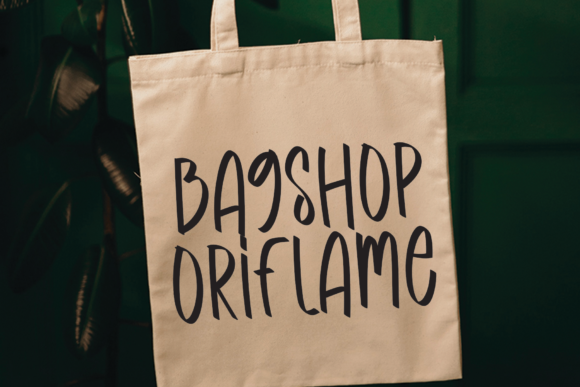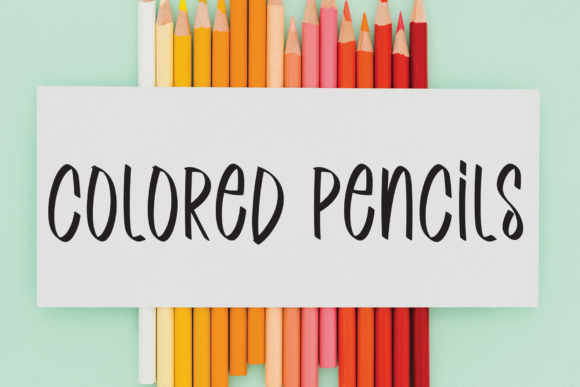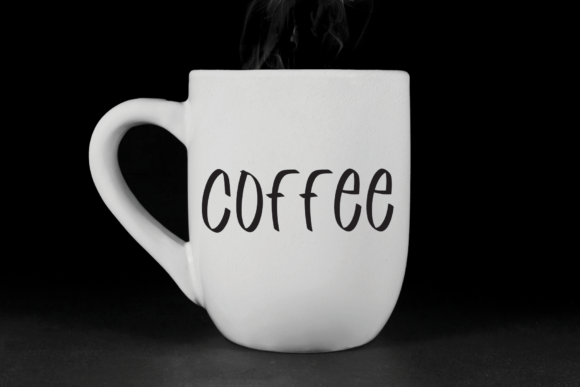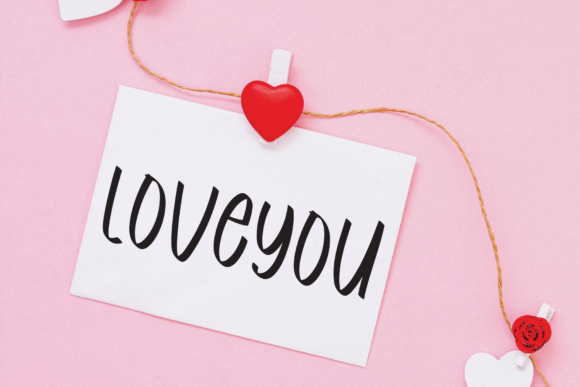
The Blushing Font: A Sweet Addition to Your Design Toolbox
I’ll never forget the summer I spent working on a branding project for a new ice cream shop. My client wanted a font that was fun, playful, and screamed “summer vibes.” I tried a dozen different fonts, but none seemed quite right. That was until I stumbled upon the Blushing font. Its charming, handwritten style and playful characters instantly captured the essence of the brand, and my client loved it! In this article, we’ll dive into what makes the Blushing font so special, its uses, and how to make the most of it in your designs.
First Impressions: A Review of Blushing Font
- ✨ Playful and charming style: The Blushing font has a unique, handwritten look that’s perfect for creating eye-catching designs.
- ✅ Highly versatile: From apparel designs to product packaging, this font can be used in a wide range of projects.
- 💕 Easy to read: Despite its playful nature, the Blushing font is surprisingly legible, making it perfect for body text and headings.
While the Blushing font is amazing, it’s not perfect. Here are a few things to keep in mind:
- 🤔 Limited use in formal designs: The playful nature of the Blushing font makes it less suitable for formal or professional designs.
- ⚠️ Some letters may require manual kerning: As with any font, you may need to adjust the kerning of certain letters to get the best results.
The Story Behind Blushing Font
The Blushing font was designed with one goal in mind: to create a beautiful, playful font that’s perfect for summer-inspired designs. The designer, inspired by the sweet, blushing cheeks of a summer breeze, crafted a font that’s both charming and easy to read.
Q: What type of designs is the Blushing font best suited for?
A: The Blushing font is perfect for summery projects, apparel designs, product packaging, branding, and more!
Q: Is the Blushing font easy to read?
A: Yes, despite its playful nature, the Blushing font is surprisingly legible, making it perfect for body text and headings.